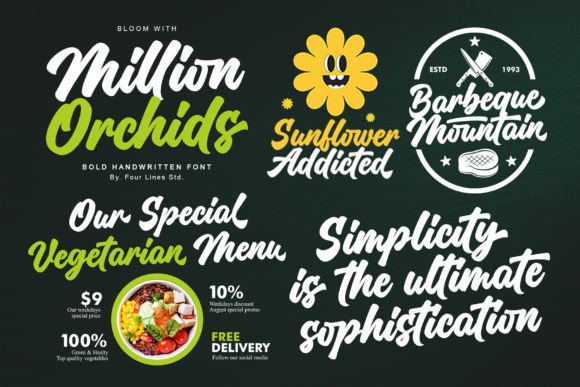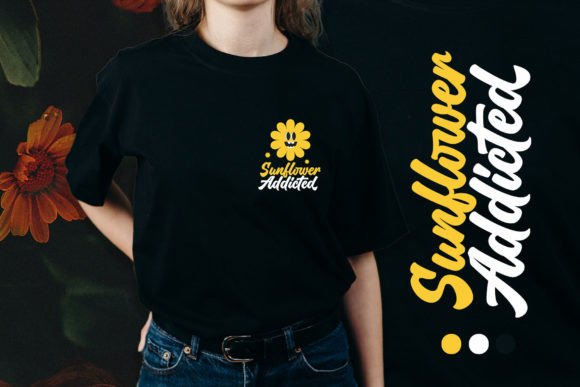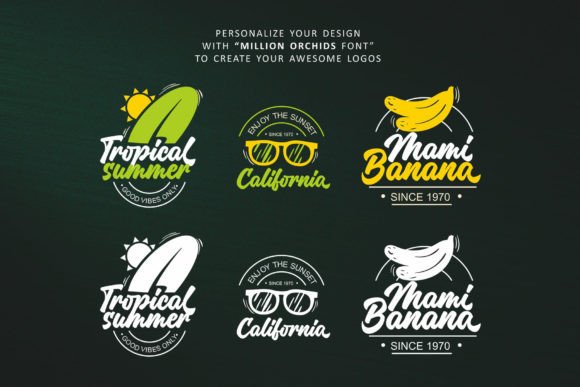
Introduction to Million Orchids Font
Have you ever stared at a blank canvas, waiting for inspiration to strike? For designers, those moments of creative paralysis can be the most daunting. But what if you had the perfect tool to spark your imagination? Enter the Million Orchids Font, a stunning script font that’s about to revolutionize your design projects.
Imagine having a million orchids at your fingertips, ready to add a touch of elegance and charm to every project. With the Million Orchids Font, you can create high-quality designs that will leave a lasting impression. Whether you’re working on a personal creative project or a commercial design, this versatile font is sure to elevate your work. Plus, with its transparent background and high-quality design, you can download it for free and start experimenting with your ideas.
Key Features of Million Orchids Font
- High-quality, intricate design perfect for creative projects requiring a touch of elegance
- Unique characteristic: The Million Orchids Font is designed to evoke a sense of whimsy and fantasy, making it perfect for creative projects that require a touch of magic
Honest Review: Million Orchids Font
As a designer, I’m always on the lookout for high-quality design resources to elevate my creative projects. The Million Orchids Font is one such resource that caught my attention. In this review, I’ll share my honest thoughts on what works well and what might be improved.
- ✨ Unique and elegant design style that adds a touch of sophistication to any project.
- ✨ High-quality typography that’s perfect for creative projects, such as book covers, posters, and editorial designs.
- ✨ Transparent background, making it easy to use with any background image or color.
- ⚠️ Limited font weights and styles, which might be a drawback for designers who need more versatility.
- ⚠️ Not ideal for large body text, as it may be too ornate and distracting.
Overall, I’m impressed with the Million Orchids Font. While it may have some limitations, its unique design style and high-quality typography make it a valuable addition to any designer’s toolkit. If you’re looking for a elegant and sophisticated font for your creative projects, the Million Orchids Font is definitely worth checking out.
Common Use Cases for Million Orchids Font
Million Orchids Font is perfect for a variety of design projects, including:
- Branding and logos
- Marketing materials
- Print design